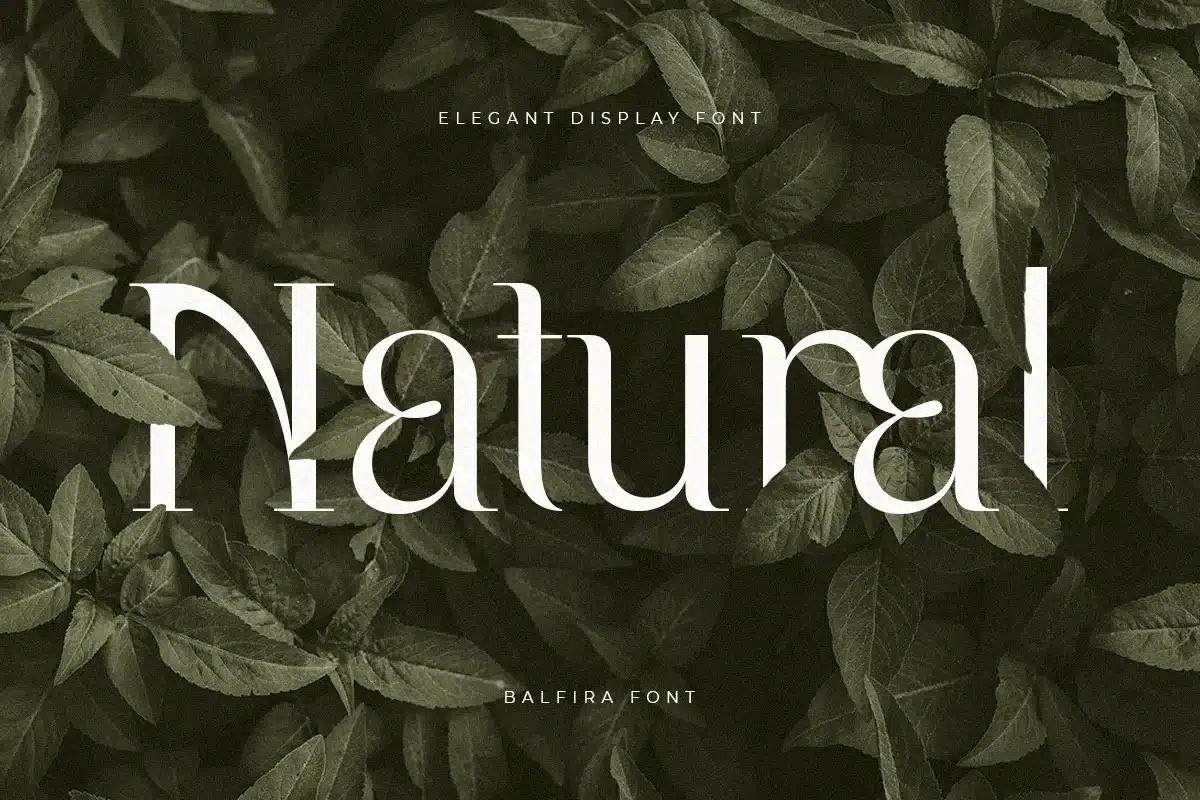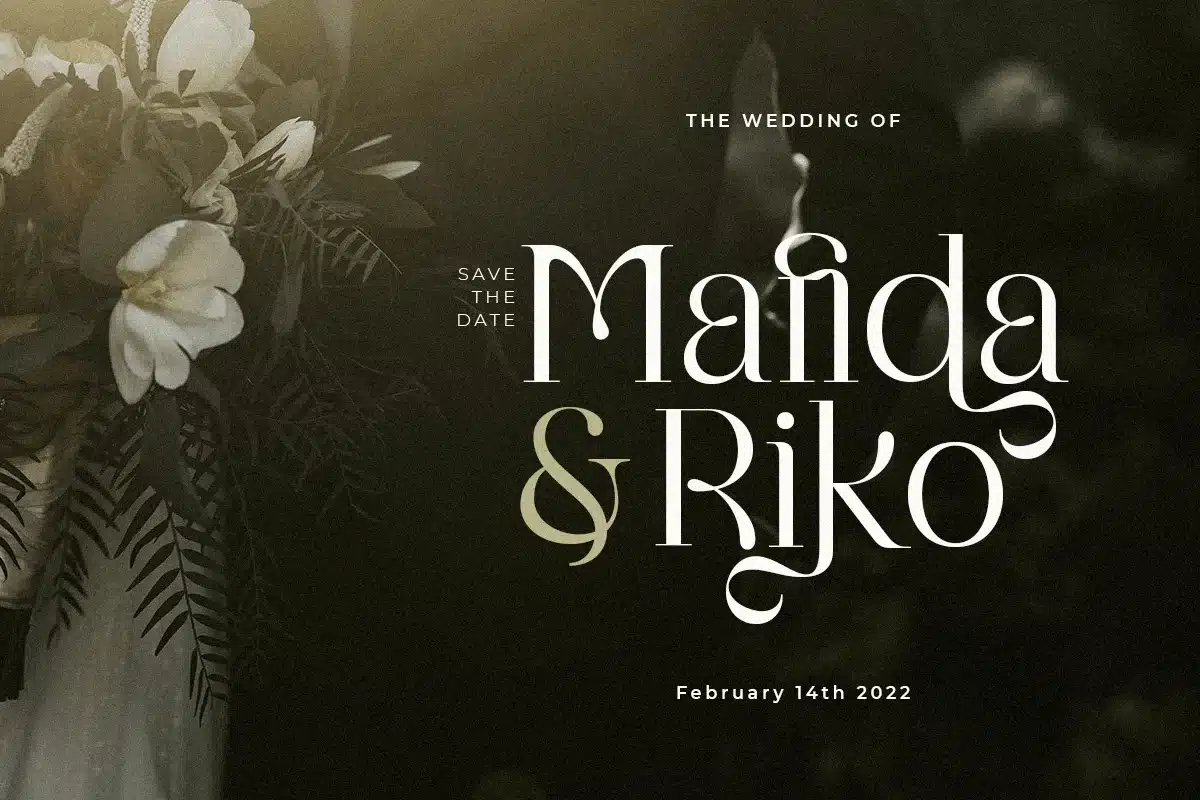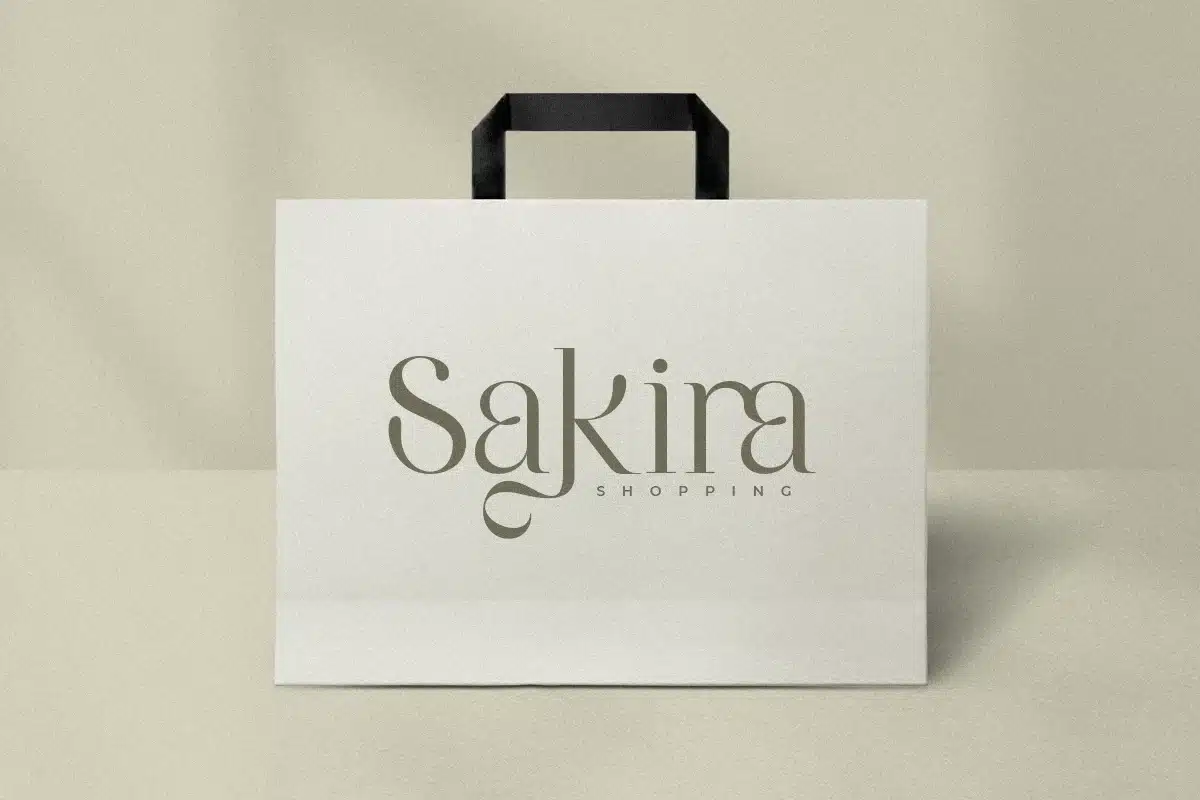
Balfira – Elegant Display Font
Balfira is An Elegant Display font that special created for Branding to show an Elegant and Classy style
A New font that we created special for Unique branding needs, with unique style that ready to add value of your brand. It's so nice to leverage designer or product owner that need solutions to make their design look more unique and elegant.